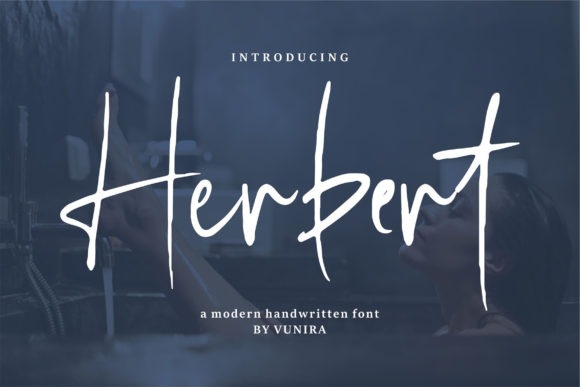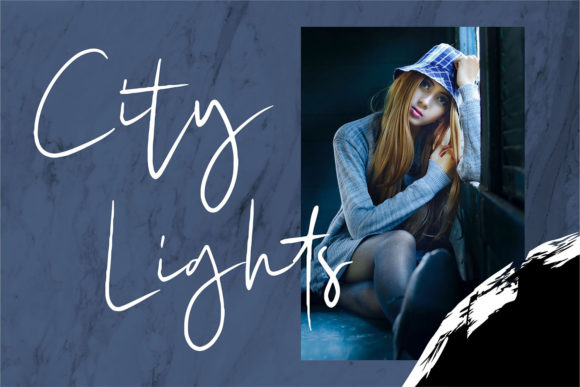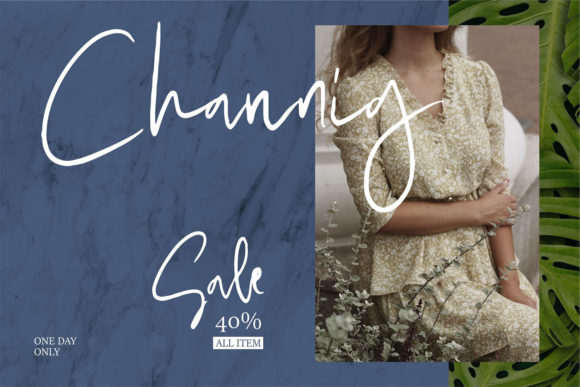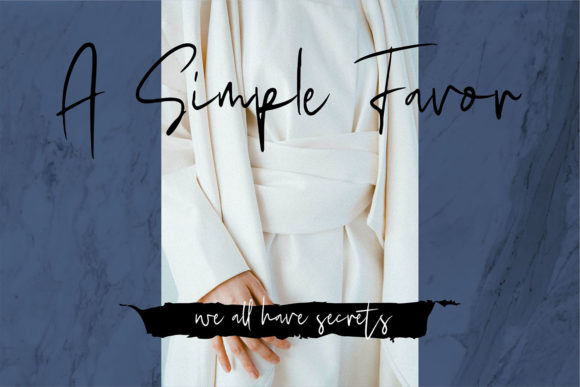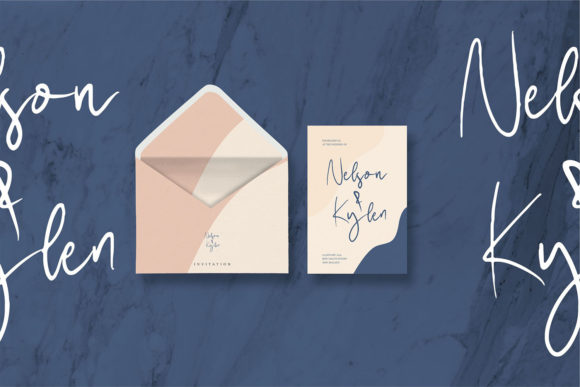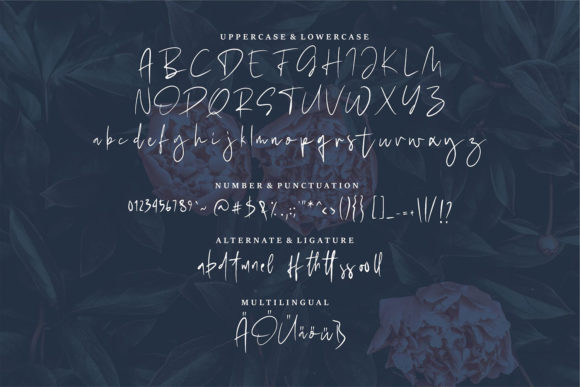
Herbert Font
About Herbert Font
Herbert is a simple and dainty handwritten font. It looks beautiful on a variety of designs requiring a personalized style, such as wedding invitations, thank you cards, weddings, greeting cards, logos and so on.